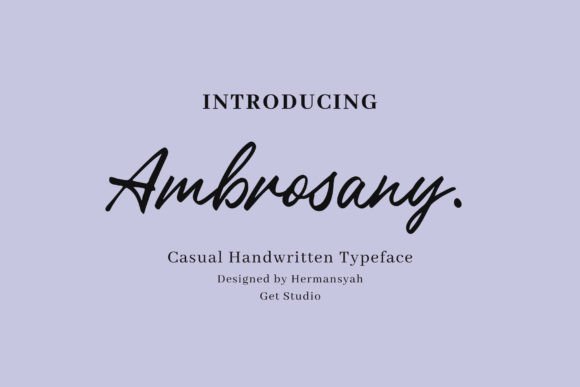
Introducing Ambrosany Font: The Ultimate Brush Script for Creative Designs
In the world of typography, fonts play a crucial role in conveying the tone and personality of a brand, product, or message. Among the numerous font styles available, brush scripts have gained immense popularity for their unique, handcrafted feel. One such font that has caught the attention of designers and creatives is the Ambrosany Font. Designed to convey a casual and organic brush script, Ambrosany effortlessly exudes a sense of natural flow, making it an ideal choice for various design projects.
Key Features of Ambrosany Font
- Casual and Organic Brush Script: Ambrosany Font boasts a unique, hand-painted feel that gives it a distinct personality.
- Natural Flow: The font’s design ensures a smooth, natural flow that makes it perfect for creative and artistic projects.
- High Versatility: Ambrosany can be used for a wide range of applications, from logos and album covers to quotes, greeting cards, and social media posts.
- Ease of Use: The font is easy to read and works well in both digital and print formats.
Endless Design Possibilities with Ambrosany Script
Ambrosany Script is incredibly versatile, making it suitable for various design projects. Here are some ideas to get you started:
- Logos: Create a memorable brand identity with Ambrosany’s unique, handcrafted feel.
- Album Covers: Add a touch of personality to music albums with this distinctive font.
- Quotes: Make inspirational quotes stand out with Ambrosany’s elegant, cursive style.
- Greeting Cards: Design beautiful, handmade-style greeting cards for special occasions.
- Book Covers: Use Ambrosany to create eye-catching book covers that convey a sense of storytelling.
- Wedding Designs: Add a personal touch to wedding invitations, programs, and other stationery.
- Social Media Posts: Elevate your social media content with Ambrosany’s casual, organic feel.
Tips for Using Ambrosany Font Effectively
To make the most of Ambrosany Font, consider the following design tips:
- Pair with Neutral Backgrounds: Let Ambrosany be the focal point by pairing it with neutral or plain backgrounds.
- Experiment with Colors: Try out different colors to find the perfect match for your design.
- Play with Sizes: Use varying font sizes to create visual hierarchy and emphasize important text.
- Add Texture: Experiment with textures and patterns to add depth to your design.
Why Choose Ambrosany Font?
With so many fonts available, why choose Ambrosany? Here are some benefits that make it an excellent choice:
- Unique Personality: Ambrosany’s handcrafted feel sets it apart from other fonts.
- High Readability: The font is easy to read, making it suitable for body text and headings.
- Flexibility: Use Ambrosany for both digital and print projects.
- Time-Saving: The font’s versatility saves you time and effort in finding the perfect font for your project.
In conclusion, Ambrosany Font is an exceptional brush script that can elevate your designs with its casual, organic feel. Its versatility, readability, and unique personality make it an ideal choice for various projects, from logos and album covers to social media posts and wedding designs. By incorporating Ambrosany into your design workflow, you’ll be able to create stunning, handcrafted-looking designs that capture the essence of your message.